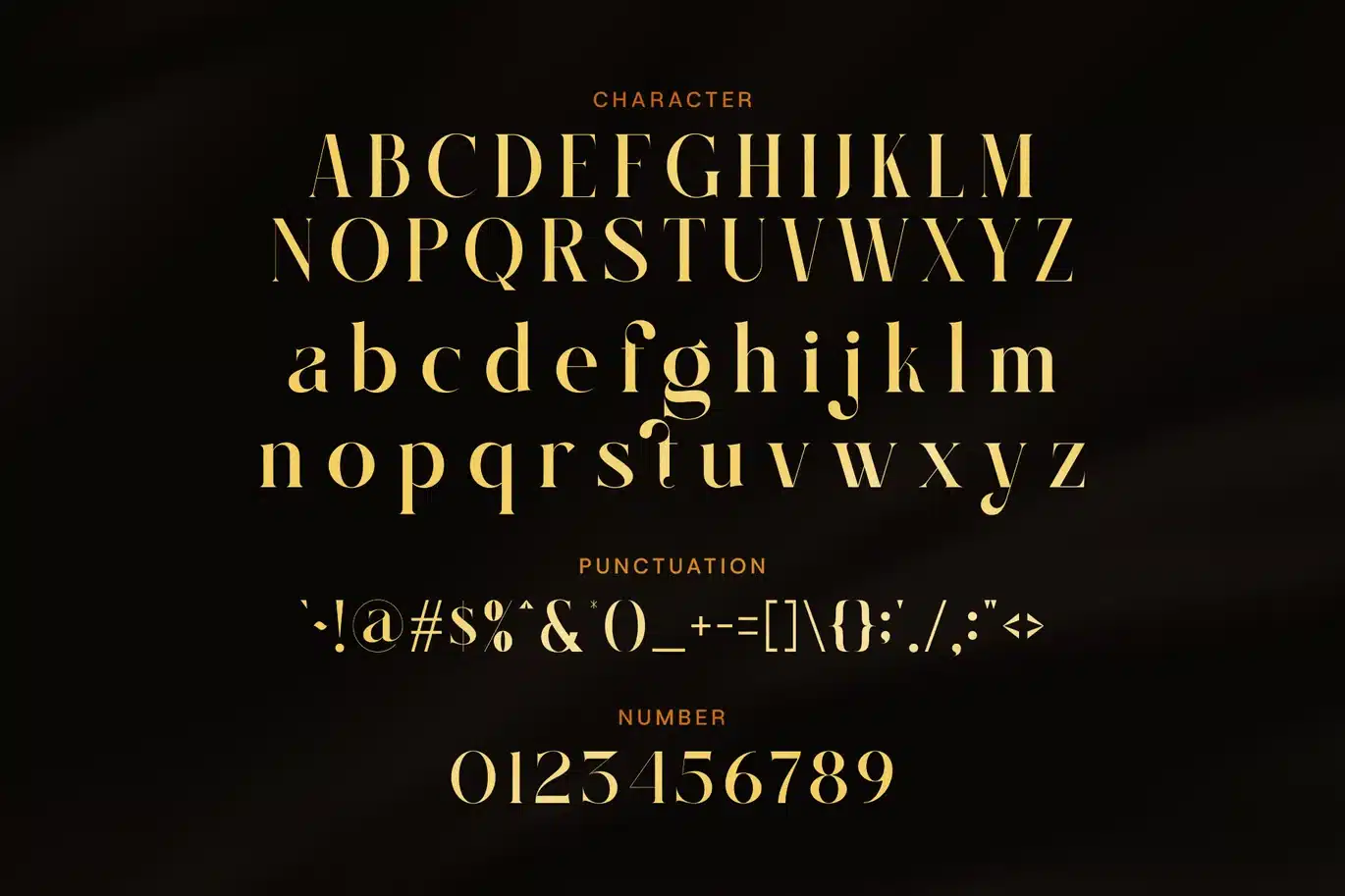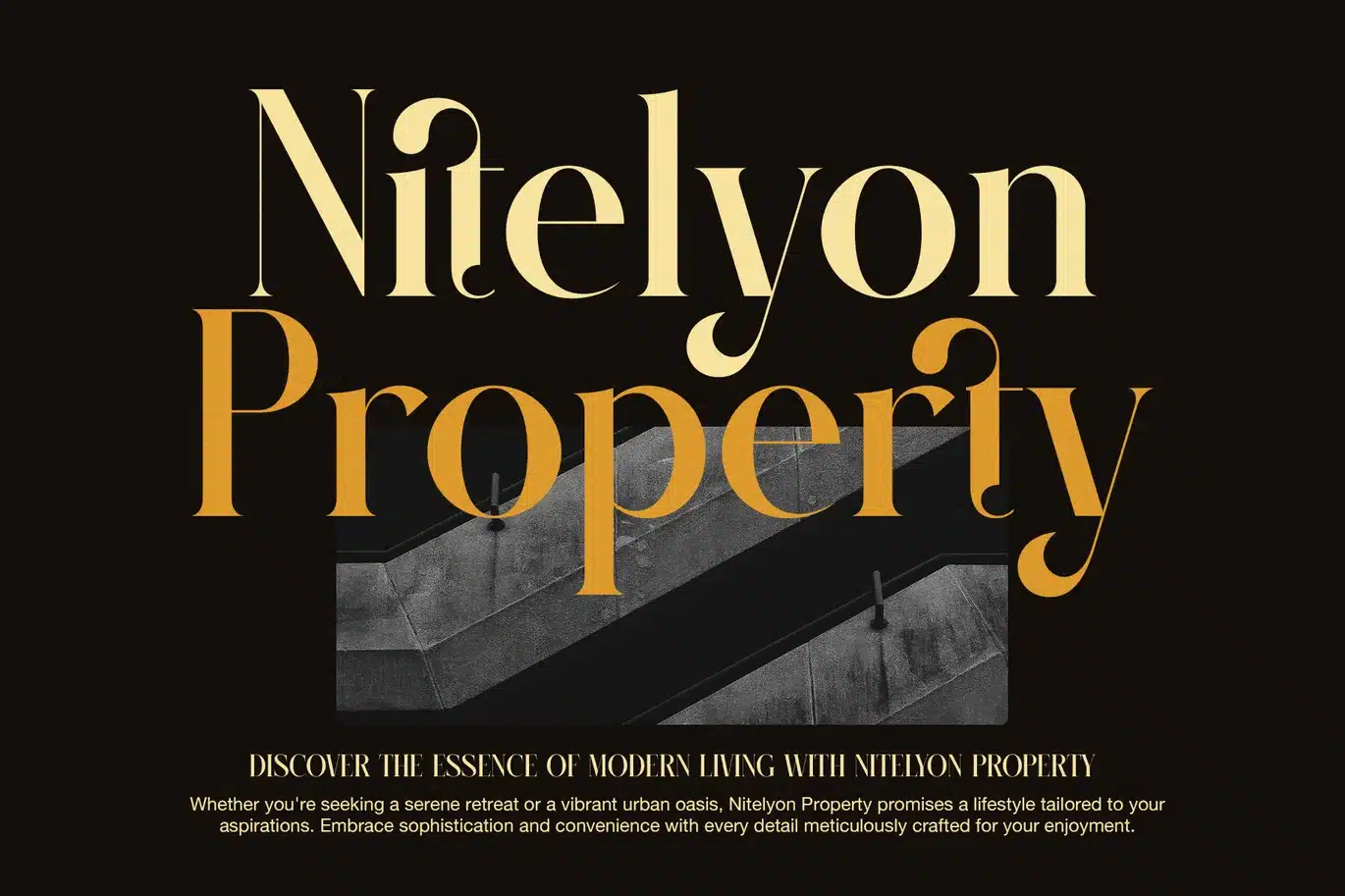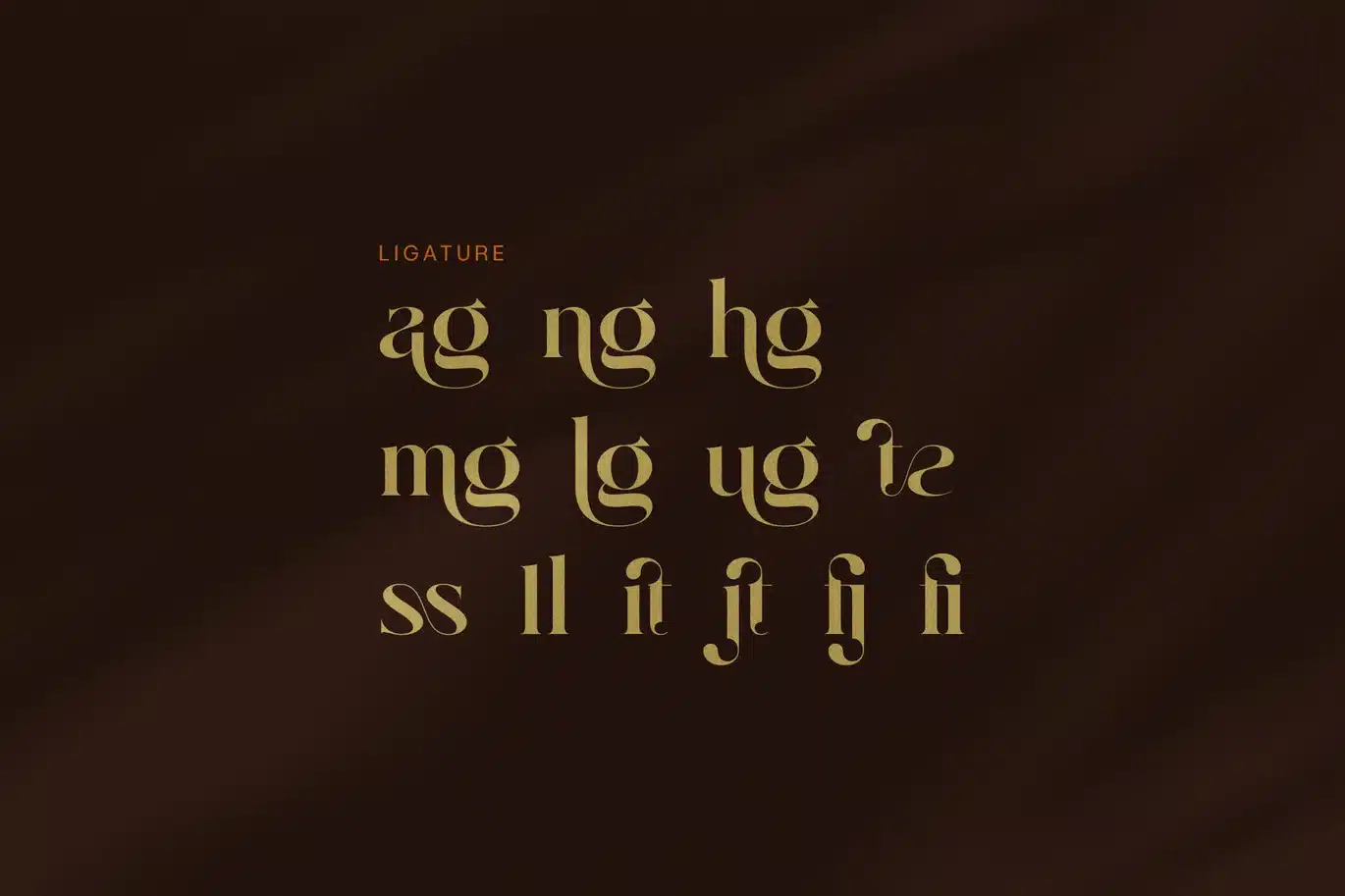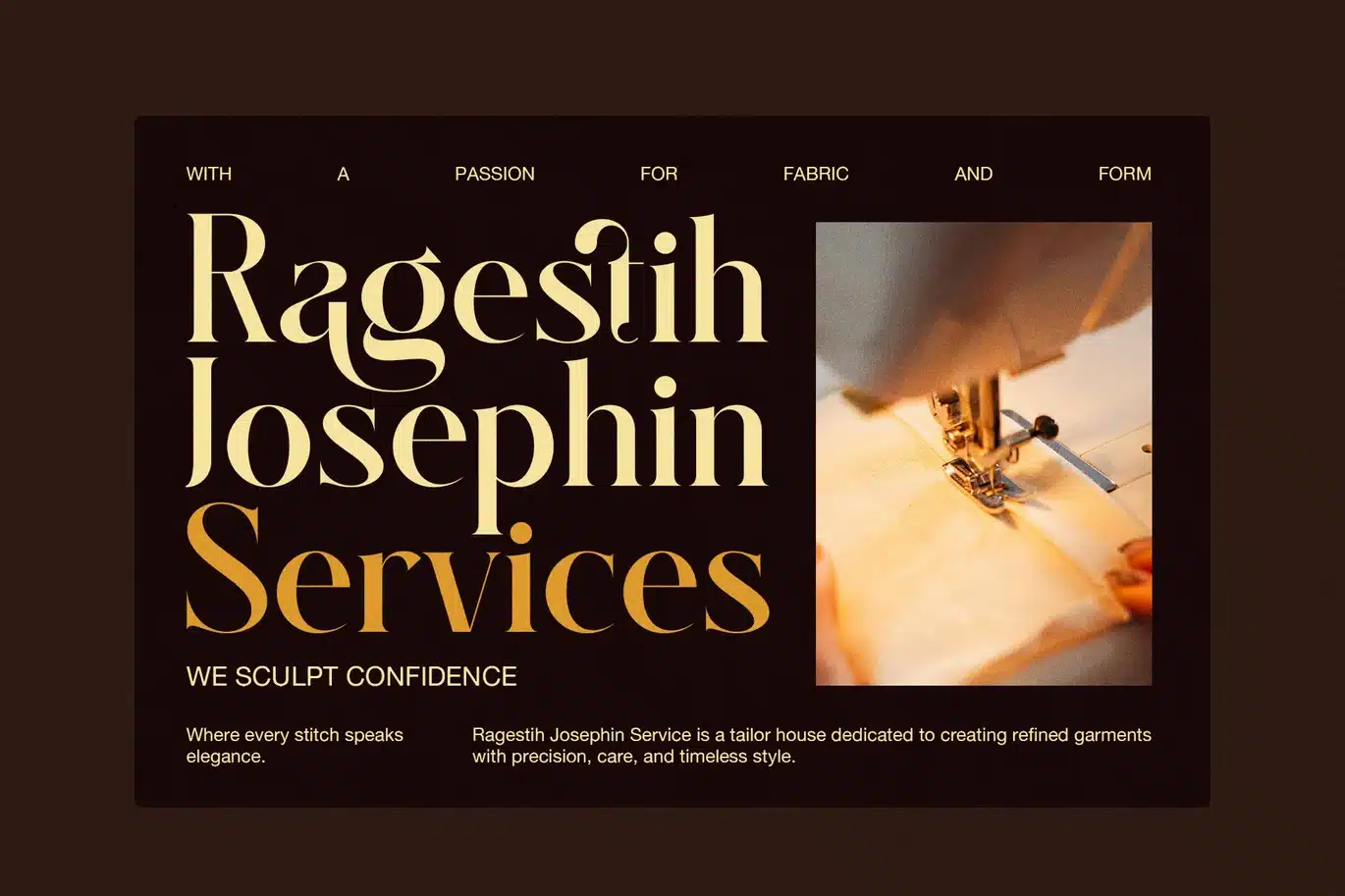
Gafilen Elegant Serif Font
Gafilen is an elegant serif font made for modern designers who value style and clarity. It brings together classic serif charm with clean, refined lines. As a result, your designs will look both timeless and fresh.
This font features thin and thick strokes that create beautiful contrast. Because of this, it's ideal for branding, logos, packaging, and editorial use. Whether you're working on a wedding invitation or a fashion brand, Gafilen fits right in.
Here’s why Gafilen is the right choice:
Elegant and modern serif letterforms
Sharp edges with smooth curves
Perfect for high-end branding and titles
Works well in both print and digital projects
Includes ligatures and stylistic alternates
Supports multiple languages
In addition, the font is easy to read, even at small sizes. That means it performs well across web, mobile, and print platforms. Also, it pairs well with clean sans-serif fonts, giving you more flexibility in your designs.
For example, you can use Gafilen for headlines in magazines, logos for fashion brands, or quotes on social media. It always adds a touch of luxury and professionalism. Moreover, its character set includes extras that allow for custom typography styles.
Even if you're new to design, you’ll find Gafilen simple to use. It looks great right out of the box, but the included ligatures and alternates let you add personal flair.
Therefore, if you're looking for a serif font that blends elegance with ease of use, Gafilen is a perfect fit. It offers a polished, high-end look without being too complex or formal.
To sum up, Gafilen helps your work stand out while keeping it clear and stylish. It's the kind of font that leaves a lasting impression—every time.